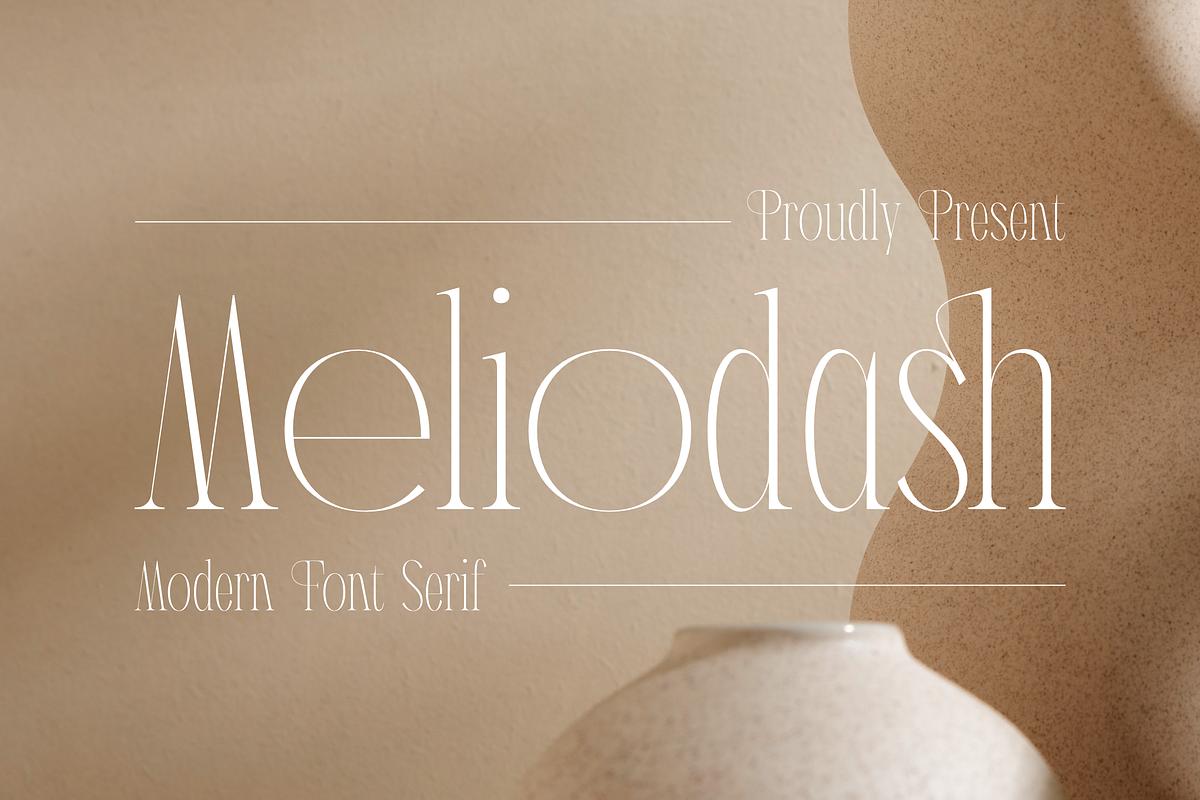
Meliodash Modern Serif Font Free Download
Meliodash – Modern Serif Font Free Download
Meliodash – Modern Serif Font Free Download is a stylish and elegant serif typeface that combines timeless sophistication with contemporary flair. Its high-contrast strokes, smooth curves, and unique details make it perfect for fashion editorials, beauty branding, luxury packaging, wedding invitations, and refined logo designs.
Designed to command attention with grace, Meliodash – Modern Serif Font Free Download works beautifully in large headlines and upscale layouts. Whether you're crafting minimalist visuals or bold, expressive identities, this font offers versatility and elegance in one polished package.